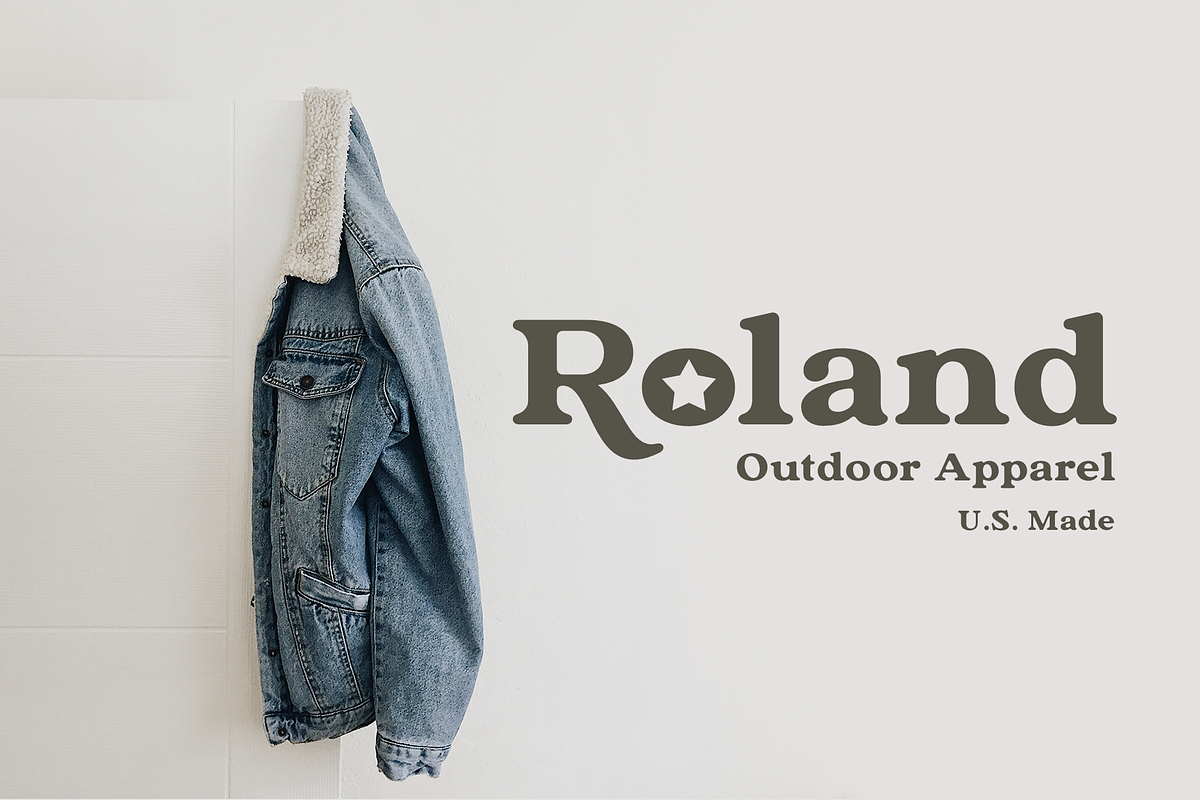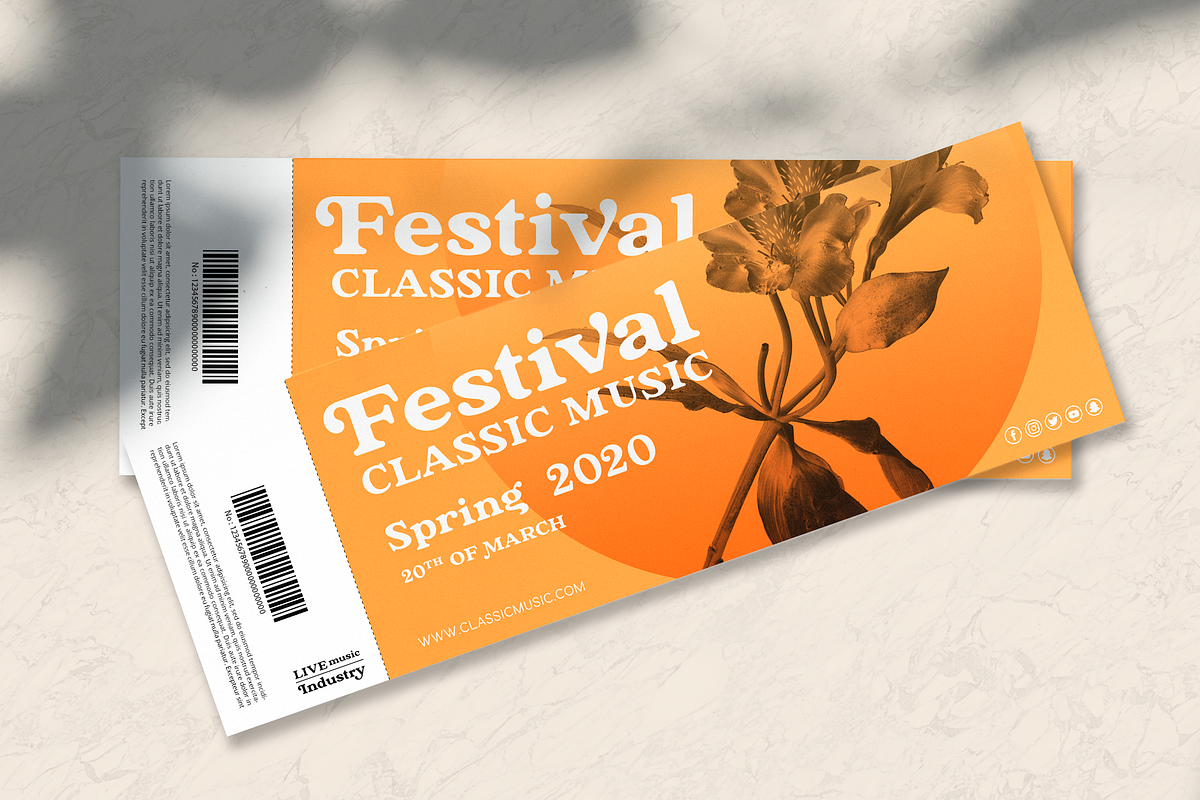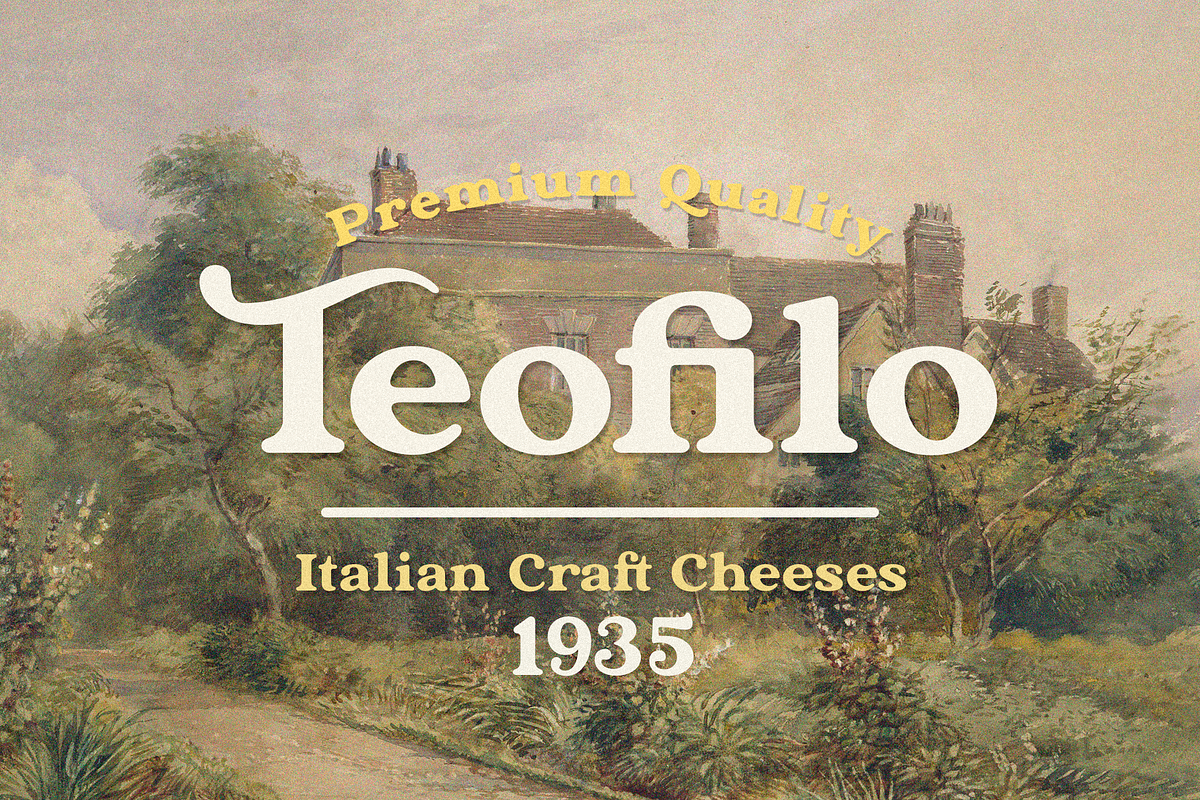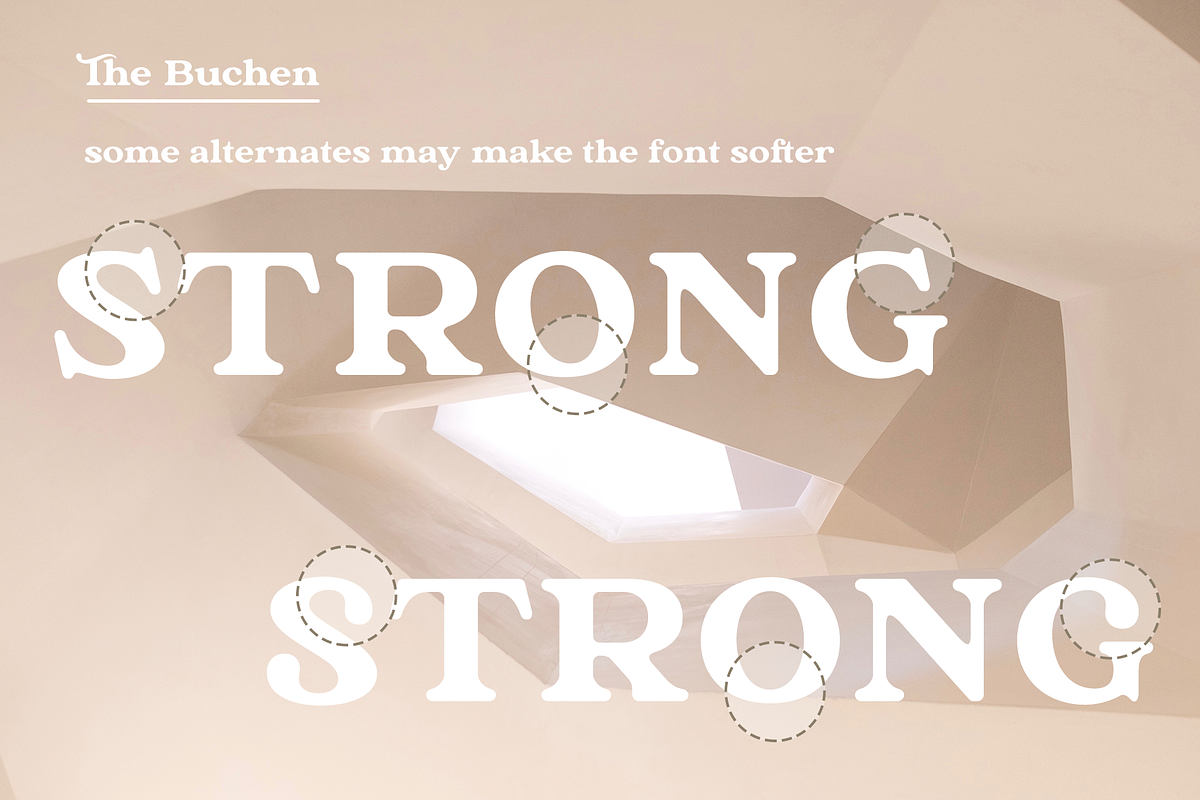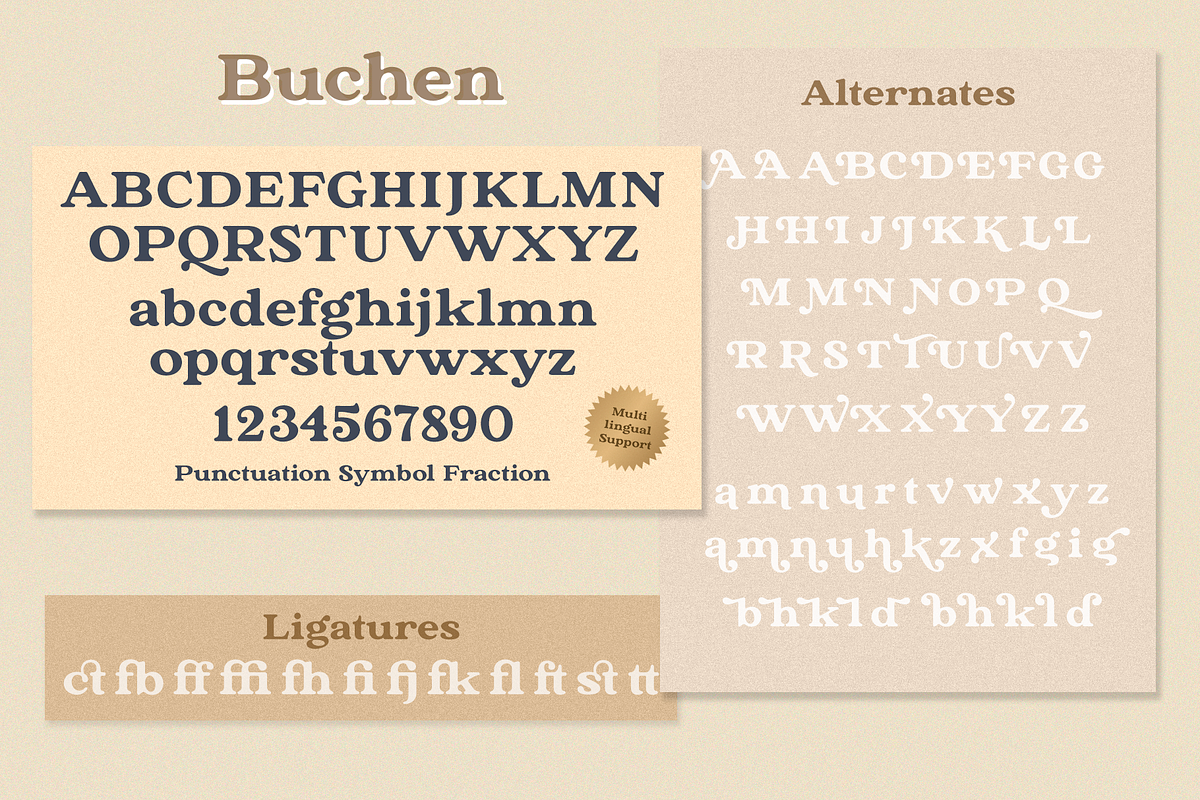
The Buchen
The Buchen is an excellent combination of smooth shapes and medium weight. It will fit perfectly into any project, both in a modern style and in a vintage style. It can also be classic and more expressive and playful thanks to the alternatives and ligatures that are harmoniously combined in this font and add charm to your project. Making it more versatile to use. This font is easy to use has OpenType features.
Following international symbols support: ÀÁÂÃÄÅĄÇĆÈÉÊËĘÌÍÎÏÐÑŃŁÒÓÔÕÖØÙÚÛÜŚŠŸÝŹŻŽßàáâãäåçèéêëìíîïðñòóôõöøùúûüýÿąćęłńśšźżž
Full alphabet with Uppercase and Lowercase A-Z
Numbers, fractions
Punctuation and symbols
Alternates for Uppercase and Lowercase, also ampersand